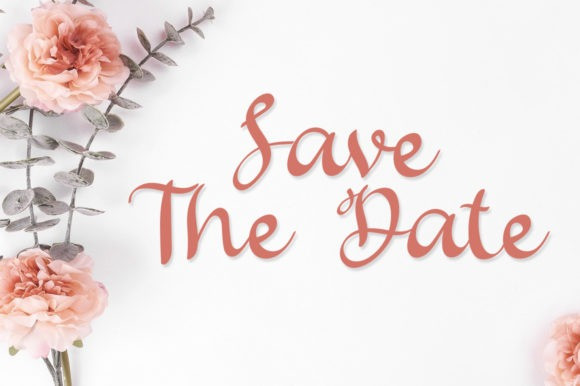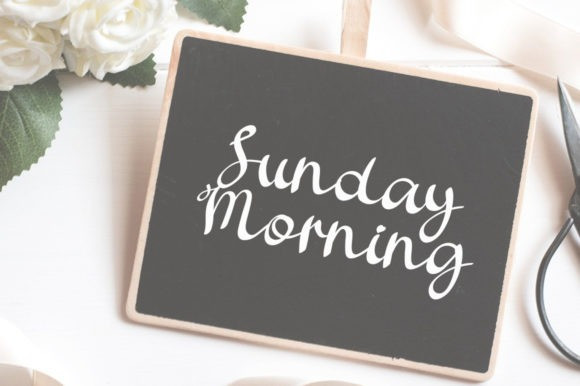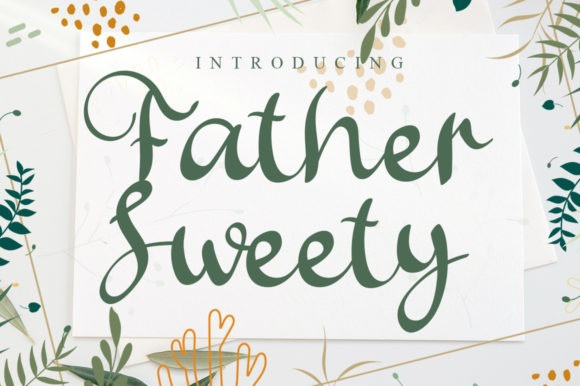
Father Sweety Font
Father Sweety is a chic, refined script font that emanates sophistication and elegance. Its stylish alternates and ligatures make this font the perfect match for any project.